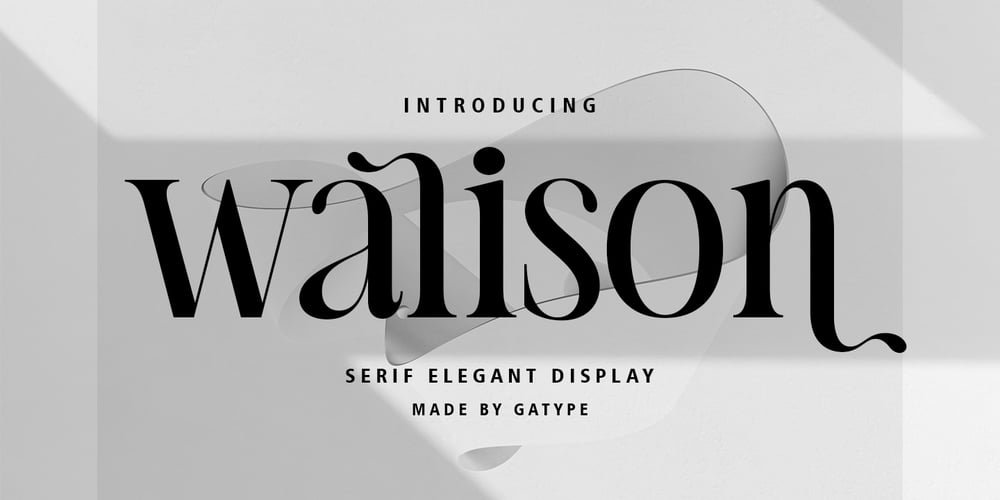
Walison
Walison font
Walison Font Family was designed by khaidir and published by Gatype. Walison contains 1 styles and family package options. Hi Presenting Everyone We are proud to present our new font. The new Walison natural look with a classy and modern style makes this font look elegant, natural, stylish. Walison will be perfect for invitations, logos & branding, photography, advertising, watermarks, social media posts, product packaging, product designs, labels, wedding designs, stationery, special events or anything else needed to create a theme.Walison is built with OpenType features and includes initial and final language styles, alternative characters for most lowercase letters, numbers, punctuation marks, alternatives, ligatures, and also supports other languages.Enjoy!